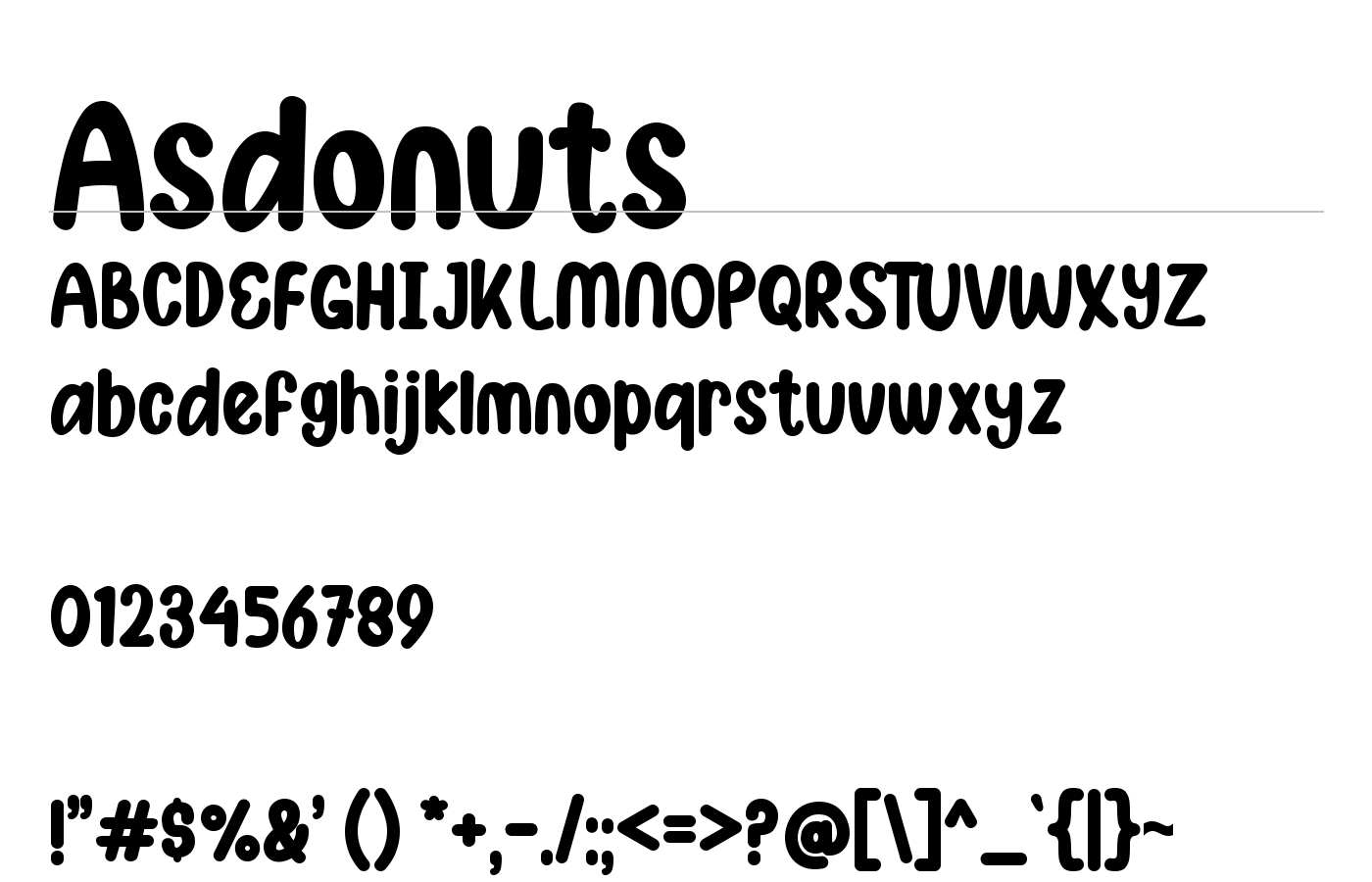
Asdonuts is a playful, rounded sans serif font with a casual, handwritten feel. Its bold weight and friendly letterforms, featuring smooth curves and a slightly quirky style, make it ideal for fun, approachable branding, children’s products, and informal headlines. This font works best in designs that want to convey warmth and creativity with a modern, relaxed touch.
Asdonuts Font
About Asdonuts Font
| Font family | Asdonuts Font |
| Designer | ABDUL GHOFUR |